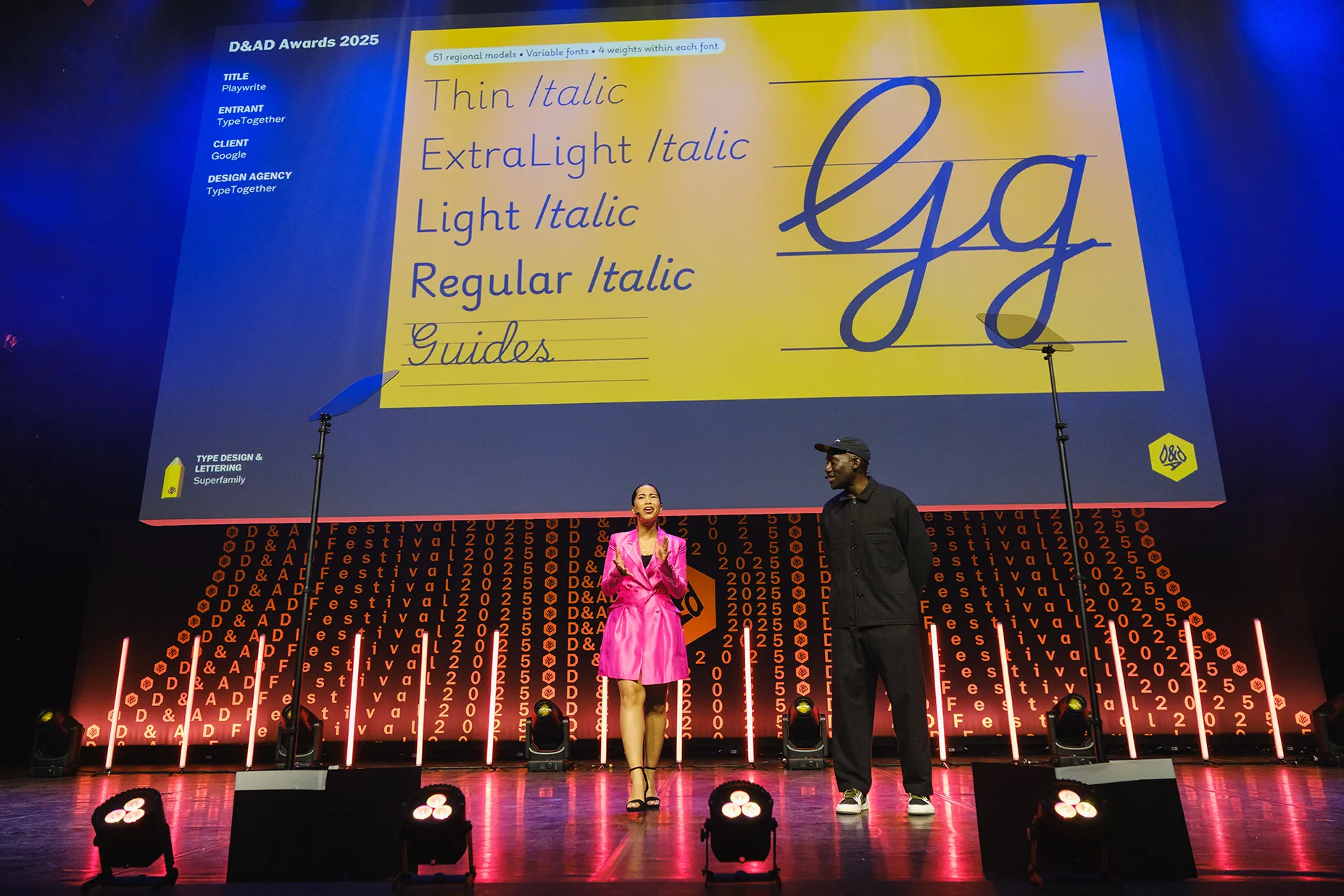
Playwrite wins D&AD Yellow Pencil
The highest award from D&AD is the coveted Yellow Pencil. Fittingly, our Playwrite font family for handwriting has added this award to its mantel.
We’re delighted to announce that Playwrite, our groundbreaking type family for handwriting instruction, was chosen as the winner of a Yellow Pencil at the 2025 Design & Art Direction (D&AD) Awards. As it was the only type design to be awarded this year, we are immensely grateful for the recognition. TypeTogether co-founders Veronika Burian and José Scaglione were in London to collect the award and to deliver a talk at the fantastic D&AD Festival. A complete list of the 2025 winners can be found on the D&AD website.
Playwrite is one of the products of our Primarium project, which conducted more than two years of research into how handwriting is taught in more than 40 countries around the world. Playwrite is available as a free download at the Google Fonts website.